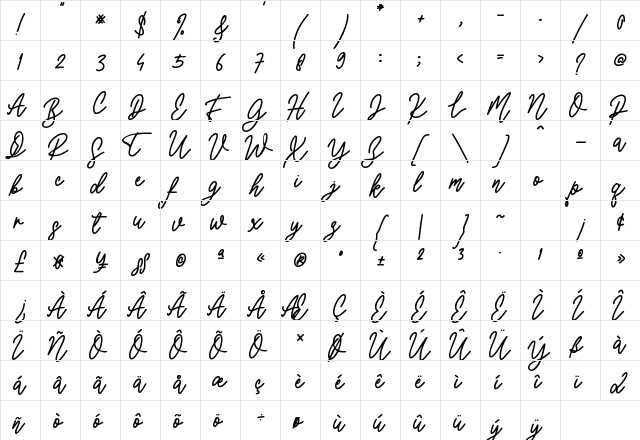
Lovely Garland Regular
Design Context for Lovely Garland Typeface
Lovely Garland is a composed and adaptable typeface that performs quietly and consistently across a wide range of design contexts.